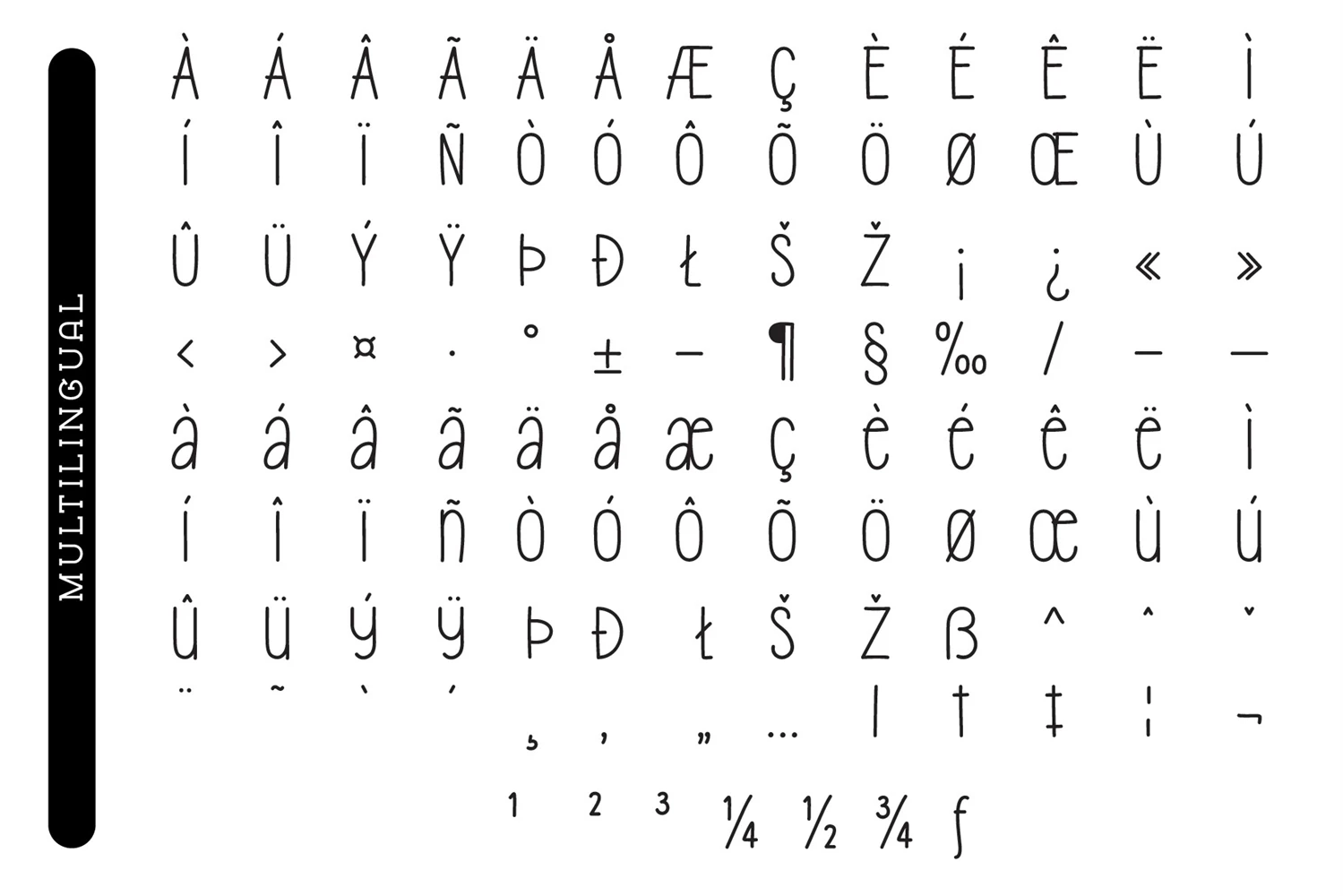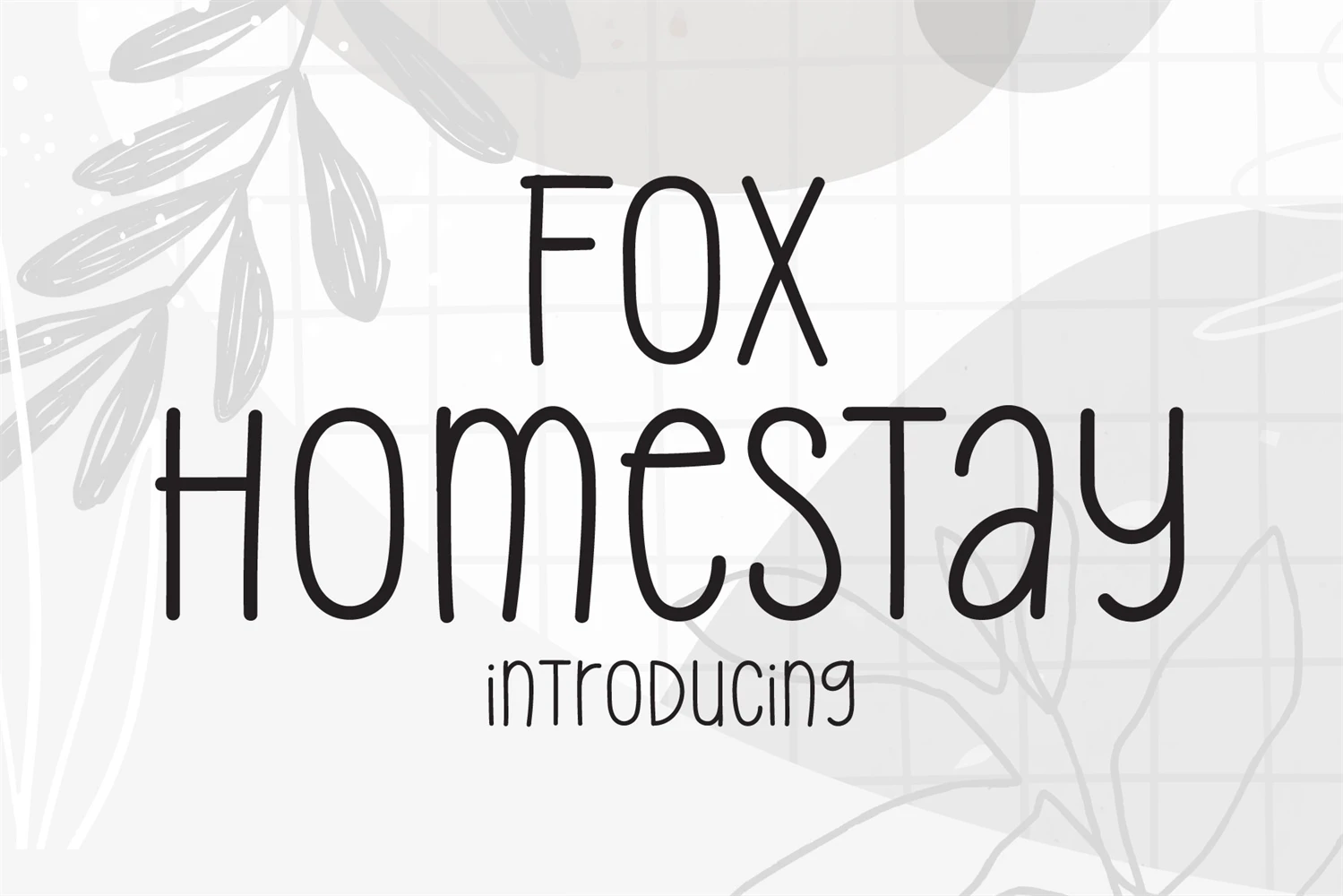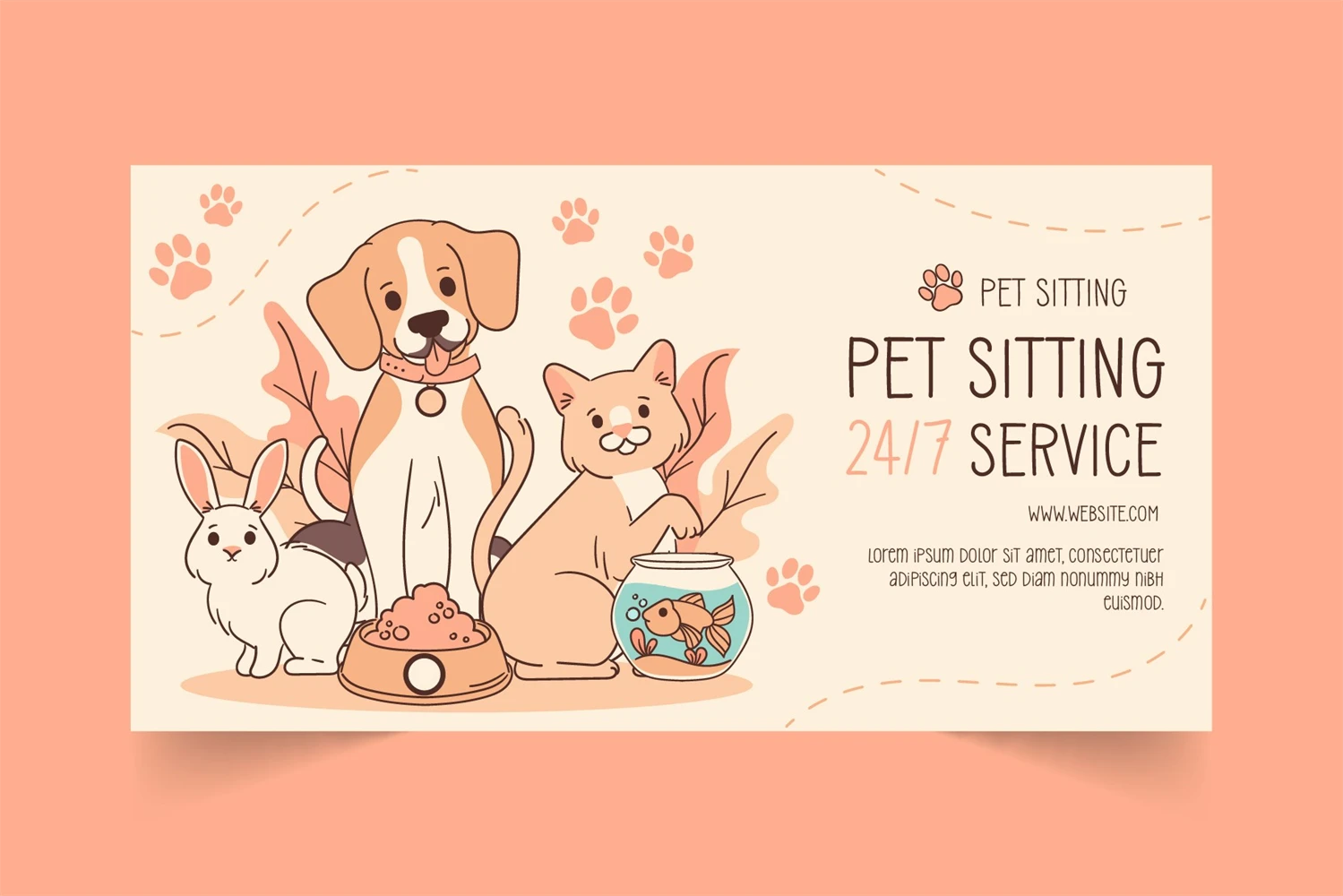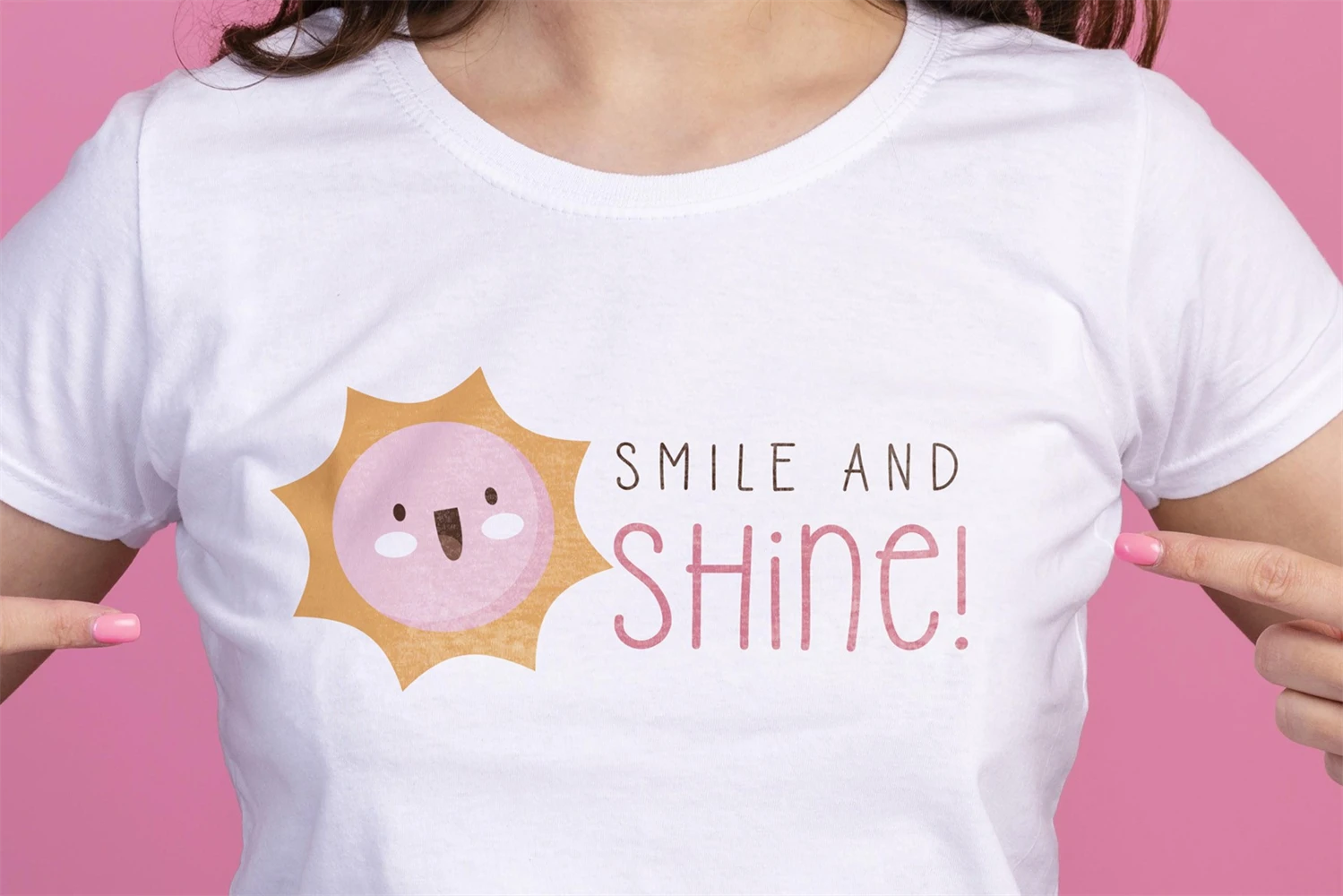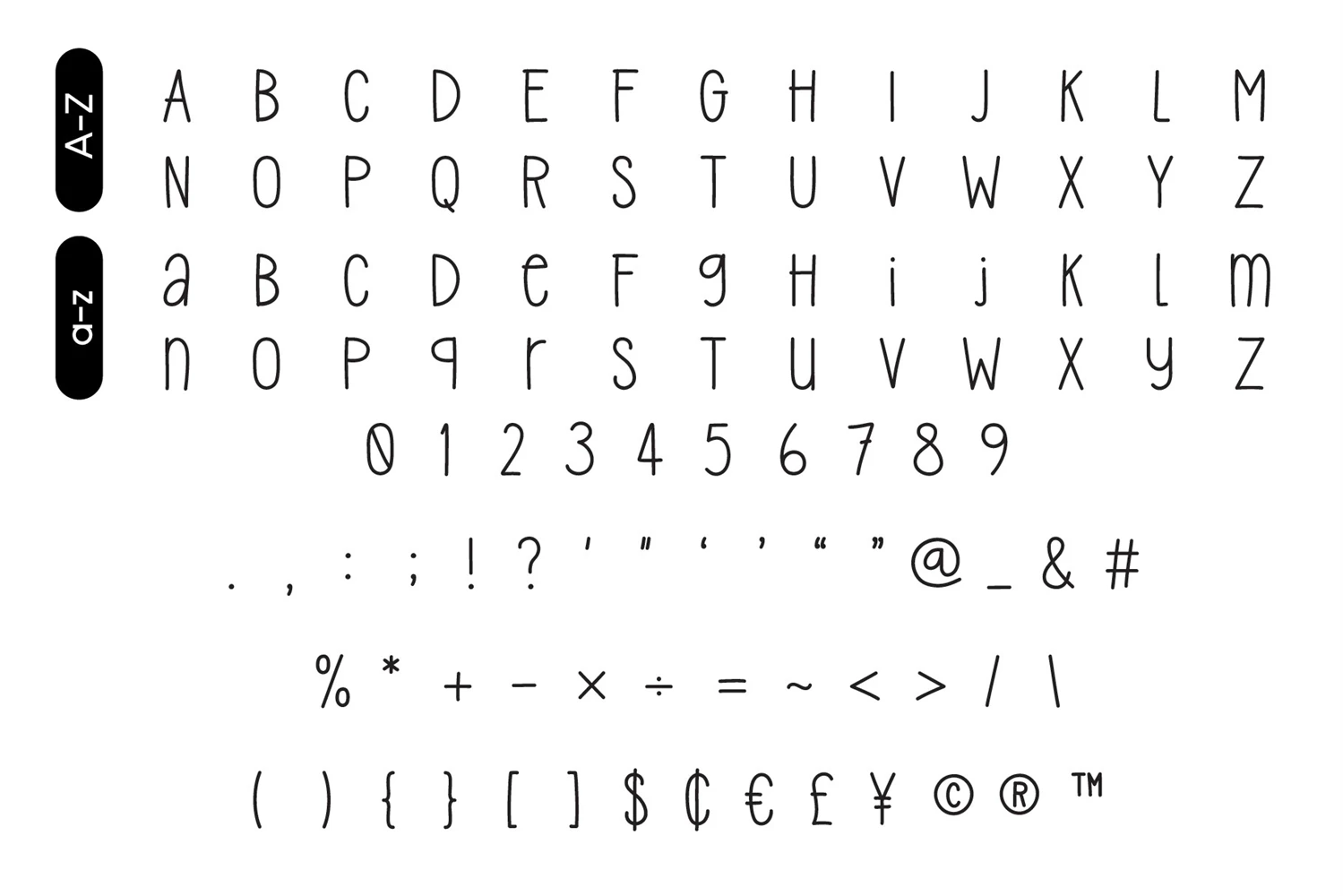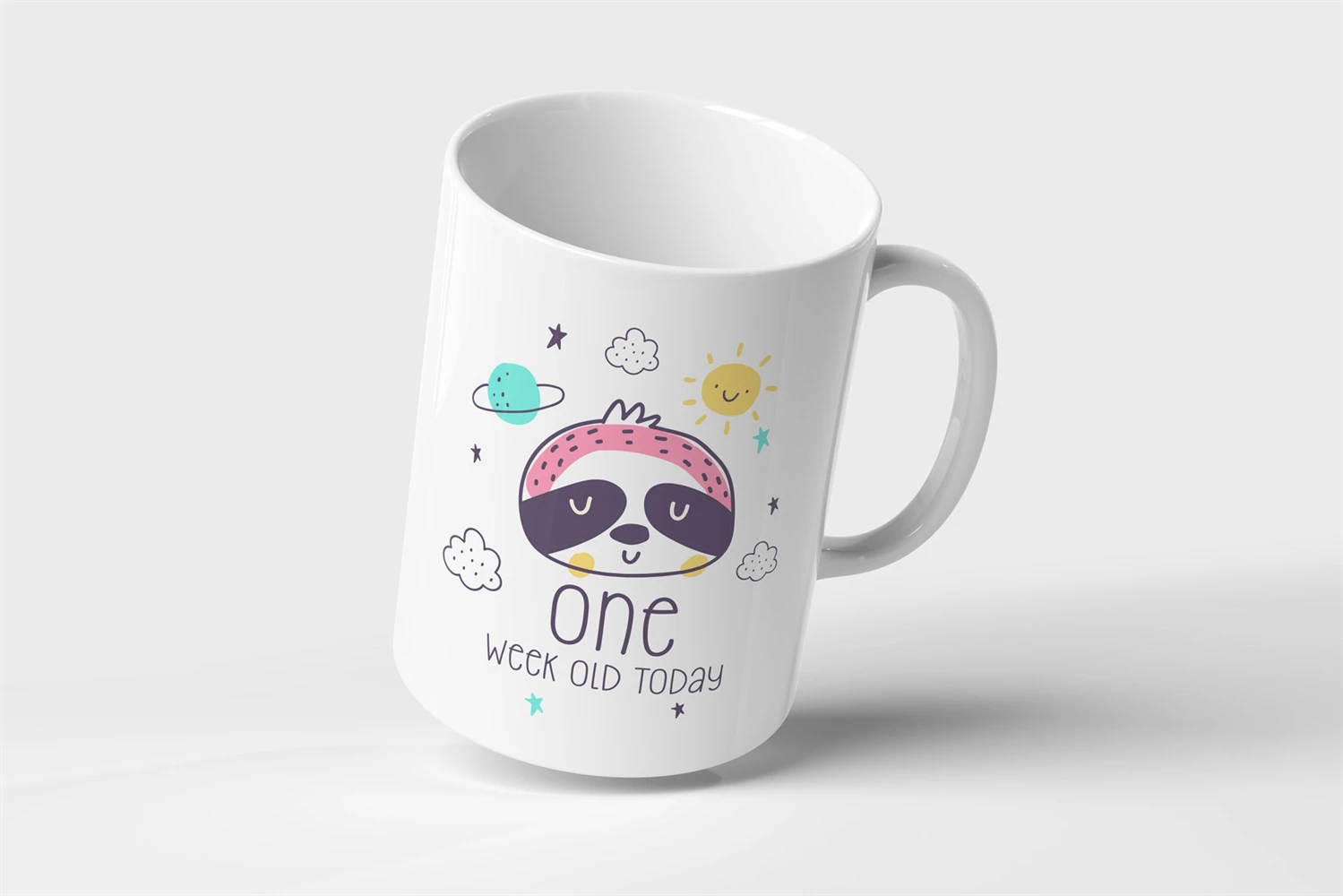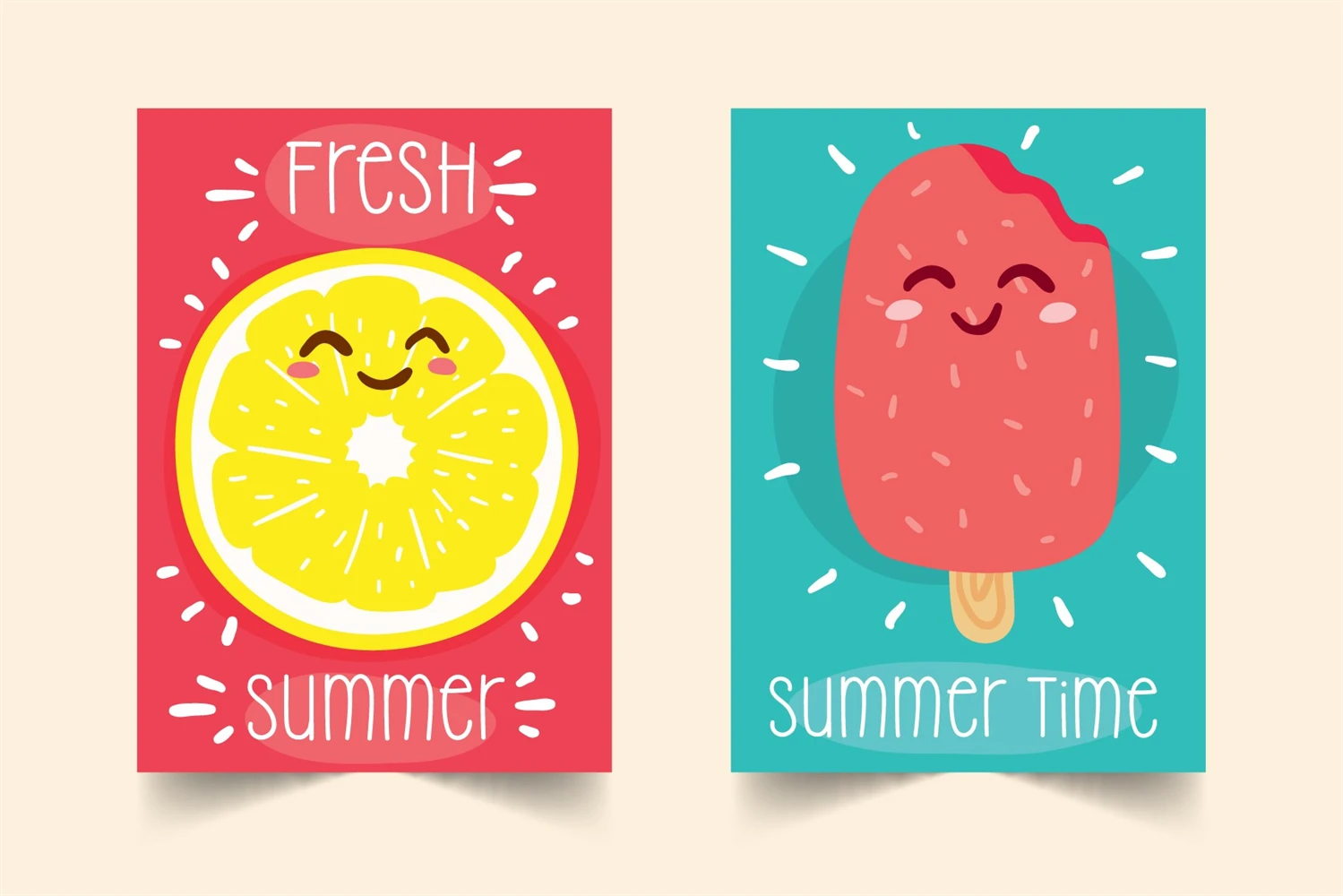
Fox Homestay is a cute handwritten font and easy to read and pairs well with a wide range of other fonts. Whether youre designing a logo, a website, or a print project, Fox Homestay will elevate your work with its effortless style and sophistication.